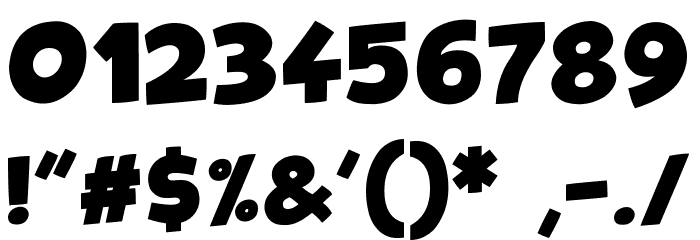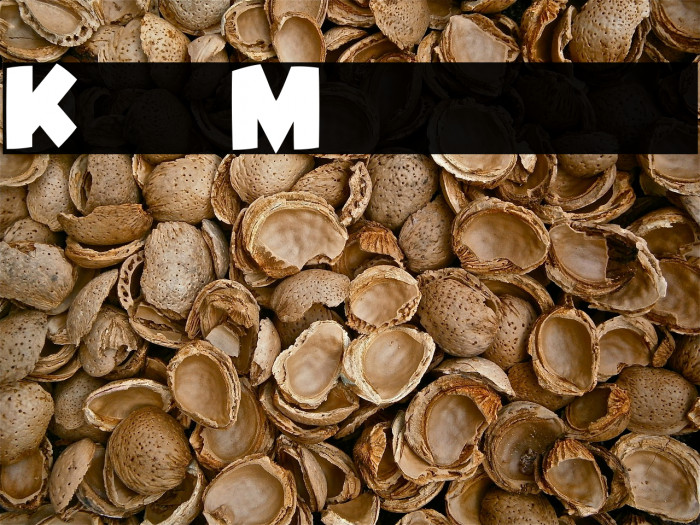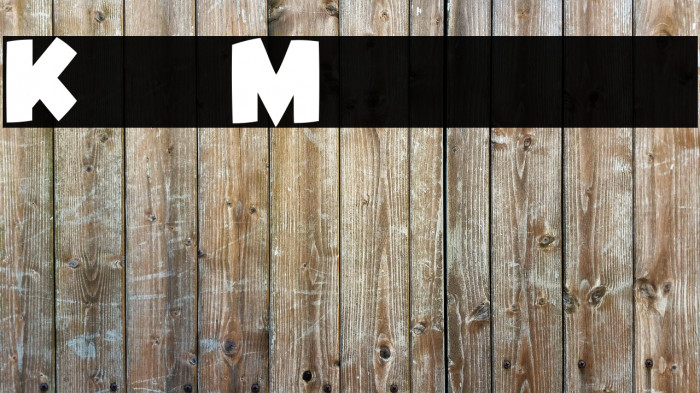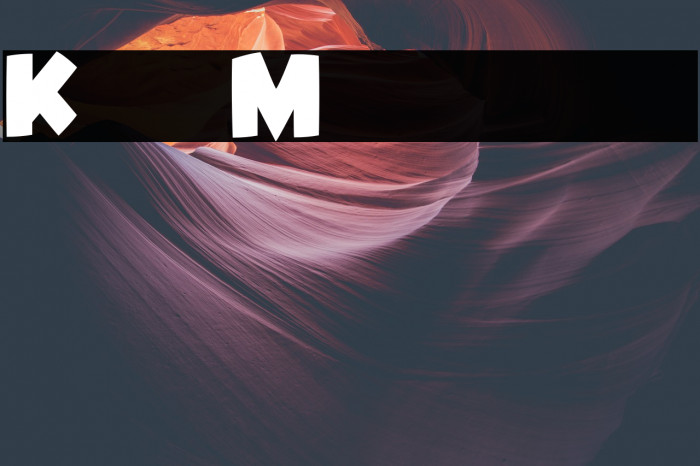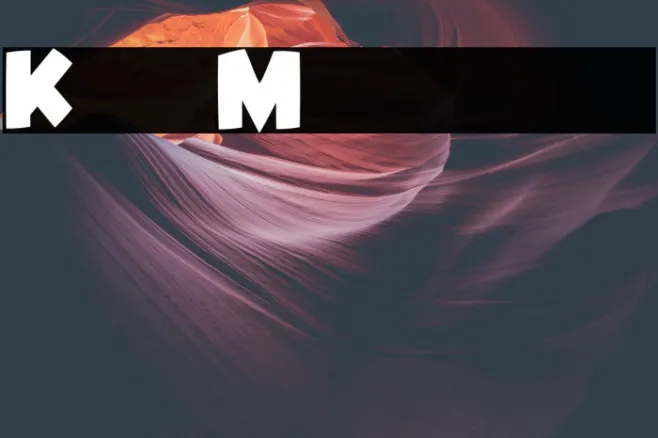
Kids Magazine Font
This playful and bold font features thick, rounded letters that convey a sense of fun and energy. The characters are slightly tilted, adding a dynamic and whimsical feel. The font's bold weight and exaggerated curves make it highly legible and attention-grabbing, perfect for capturing the interest of a young audience. The numbers and special characters maintain the same playful style, ensuring consistency across different types of content. The overall design is reminiscent of comic book lettering, making it ideal for creative and informal applications.
A bold, playful font with rounded, dynamic characters.
- Proposed Projects: Ideal for children's books, comic strips, playful branding, and educational materials.
- Overall Style: Playful, Energetic, Fun